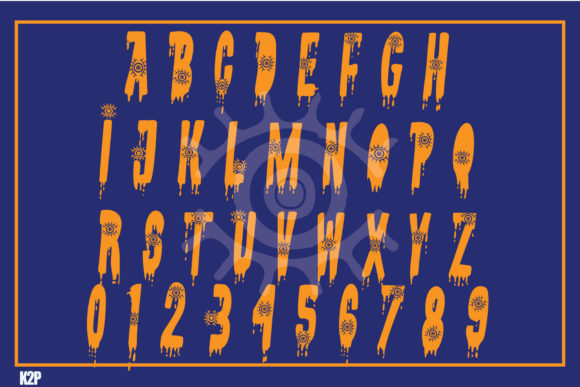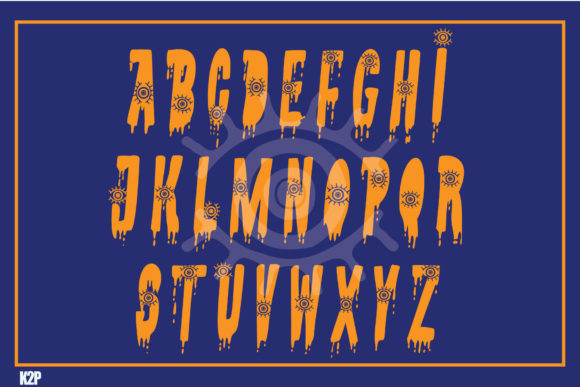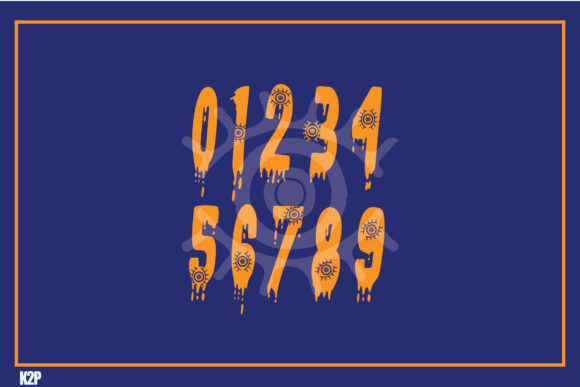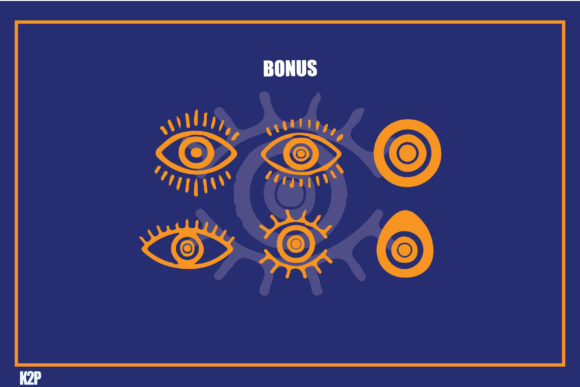
Evil Eye II Font: The Ultimate Decorative Font for Spooky Creations
Are you looking for a font that adds a touch of spookiness to your designs? Look no further than the Evil Eye II Font. This thick-lettered and uniquely designed decorative font is perfect for any Halloween project or crafty idea. In this article, we’ll dive into the features and benefits of the Evil Eye II Font and explore how you can use it to create amazing designs.
What is Evil Eye II Font?
Evil Eye II Font is a decorative font designed to add a touch of eeriness to your creations. Its thick letters and unique design make it stand out from other fonts, making it perfect for Halloween-themed projects, horror-themed crafts, and any design that requires a spooky touch.
Key Features of Evil Eye II Font
• Thick-Lettered: The Evil Eye II Font features thick letters that give it a bold and eye-catching appearance.
• Uniquely Designed: The font’s unique design sets it apart from other decorative fonts, making it perfect for designers and crafters looking for something new and exciting.
• Perfect for Halloween: The Evil Eye II Font is designed with Halloween in mind, making it perfect for projects such as invitations, posters, and decorations.
Benefits of Using Evil Eye II Font
Using the Evil Eye II Font in your designs offers several benefits, including:
• Adds a Spooky Touch: The font’s unique design and thick letters add a spooky touch to any design, making it perfect for Halloween-themed projects.
• Stand Out from the Crowd: The Evil Eye II Font’s unique design makes it stand out from other fonts, ensuring that your designs grab attention.
• Versatile: The font can be used in a variety of designs, from invitations and posters to decorations and crafts.
• Easy to Pair: The Evil Eye II Font pairs well with other fonts, making it easy to create visually appealing designs.
Examples of Evil Eye II Font in Action
The Evil Eye II Font can be used in a variety of designs, including:
• Halloween Invitations: Use the font to create spooky invitations for Halloween parties.
• Horror-Themed Crafts: Use the font to add a touch of eeriness to horror-themed crafts, such as decorations and gift tags.
• Posters: Use the font to create eye-catching posters for Halloween events or horror-themed movies.
The Evil Eye II Font is a versatile and unique decorative font that’s perfect for any Halloween project or crafty idea. Its thick letters and spooky design make it stand out from other fonts, ensuring that your designs grab attention. With its ease of use and versatility, the Evil Eye II Font is a must-have for designers and crafters looking to add a touch of spookiness to their creations.